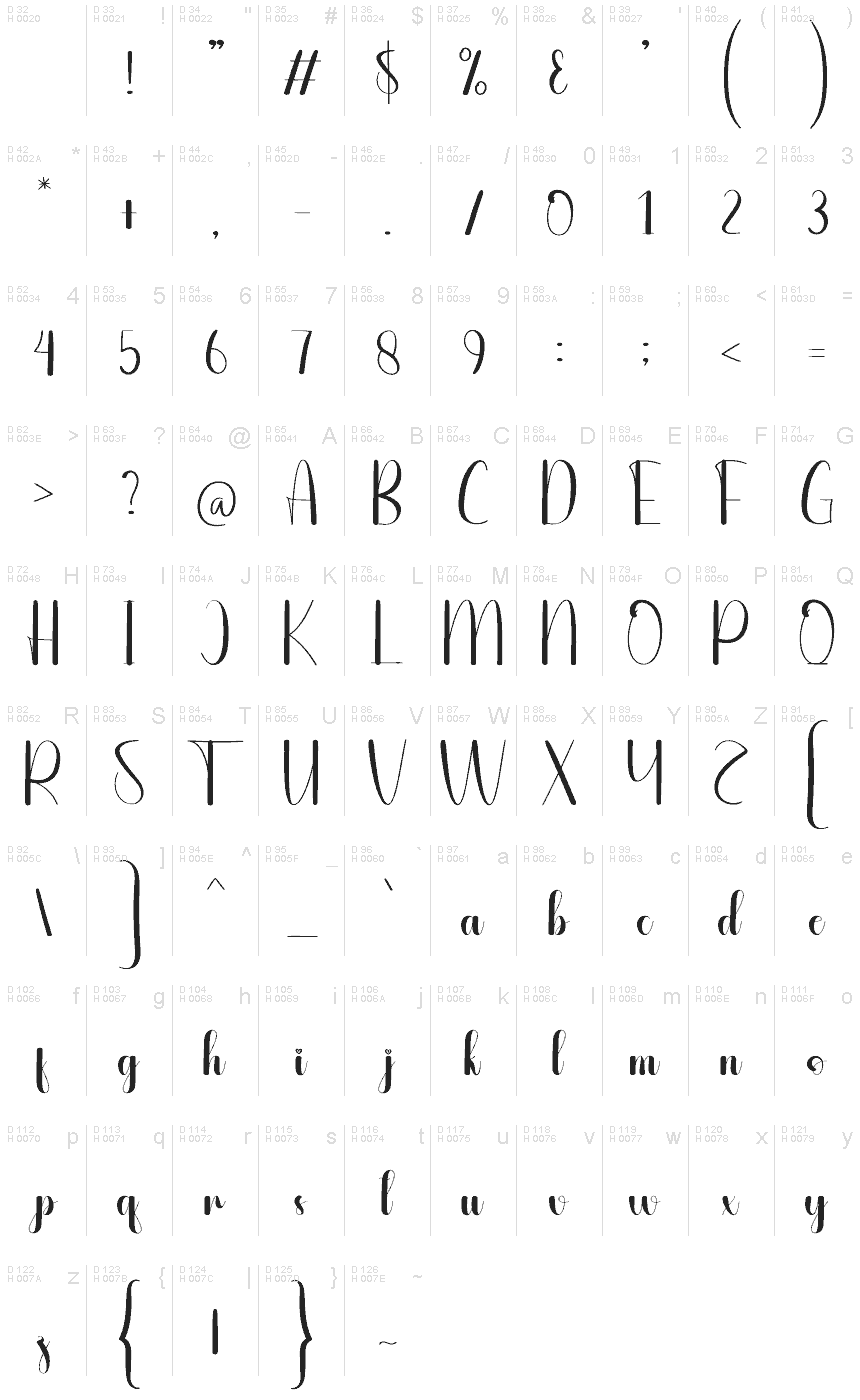
Sample font by Andi Moz is a free handwritten font offered to your attention today, a relaxing resource that brings forward natural beauty. Showcase the splendor of gentle cursive designs with entitled texts, quotes, and cards. Each letter transferred by its continuous strokes will hold an elegant design within its reach and stylishly present it.
Such an easy-going character can be used for a variety of projects including apparel designs like T-shirt prints, decorative throw pillows, mugs, artistic postcards or envelopes. Other classic uses include logo design (for coffee shops or clothing brands), packaging or even inside physical visual journals.